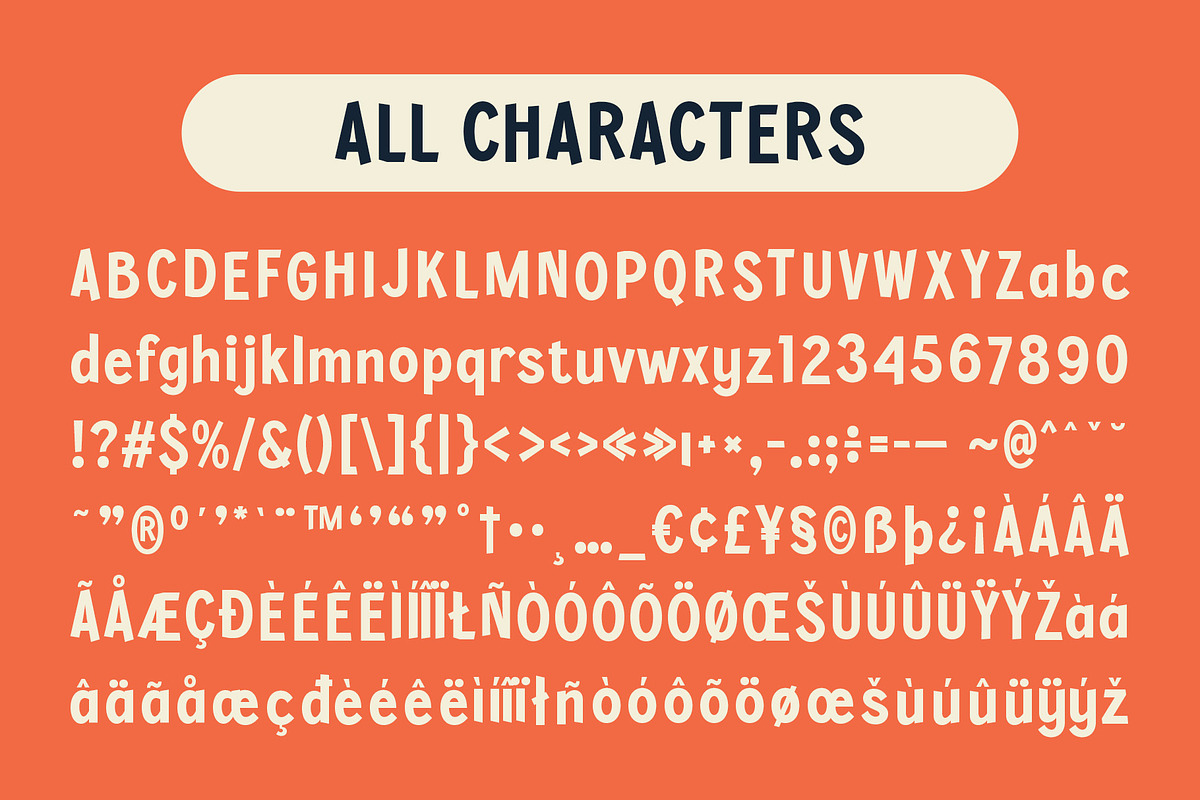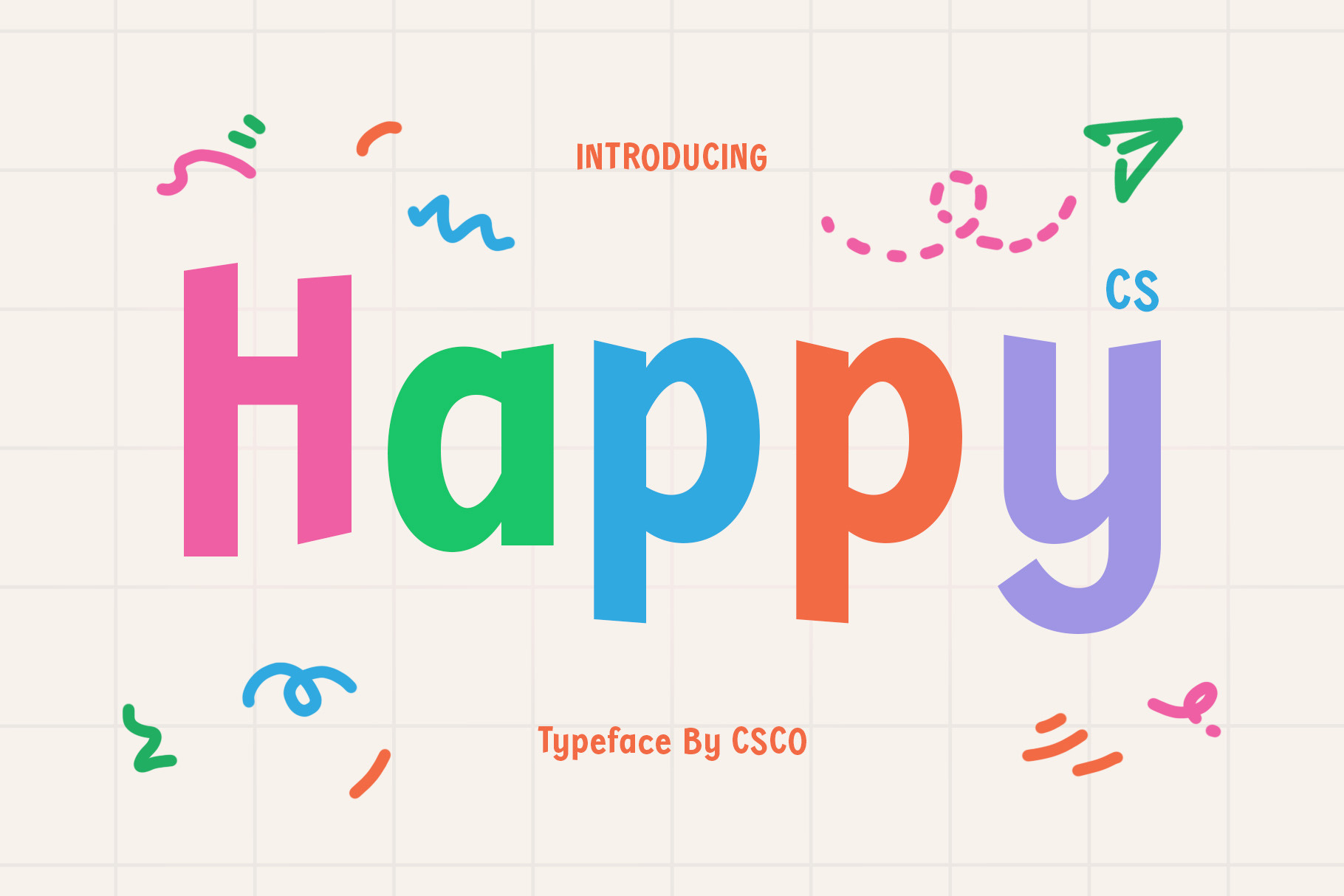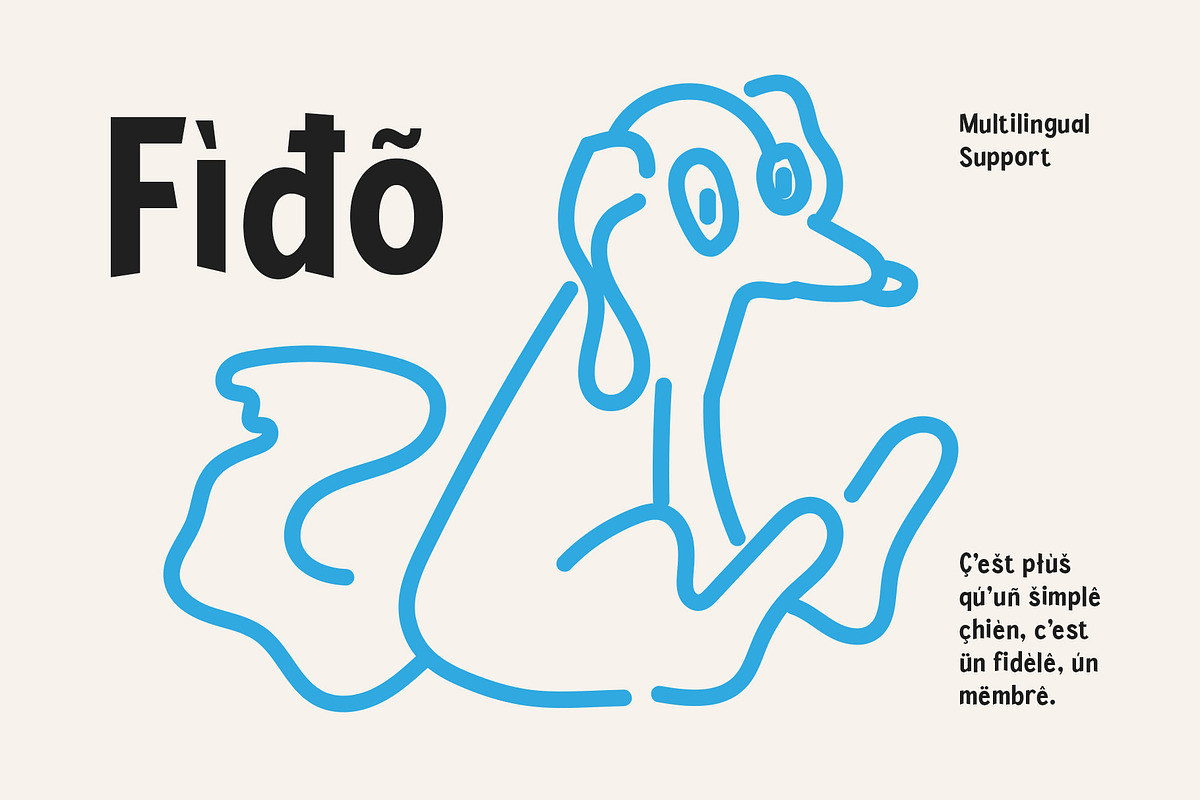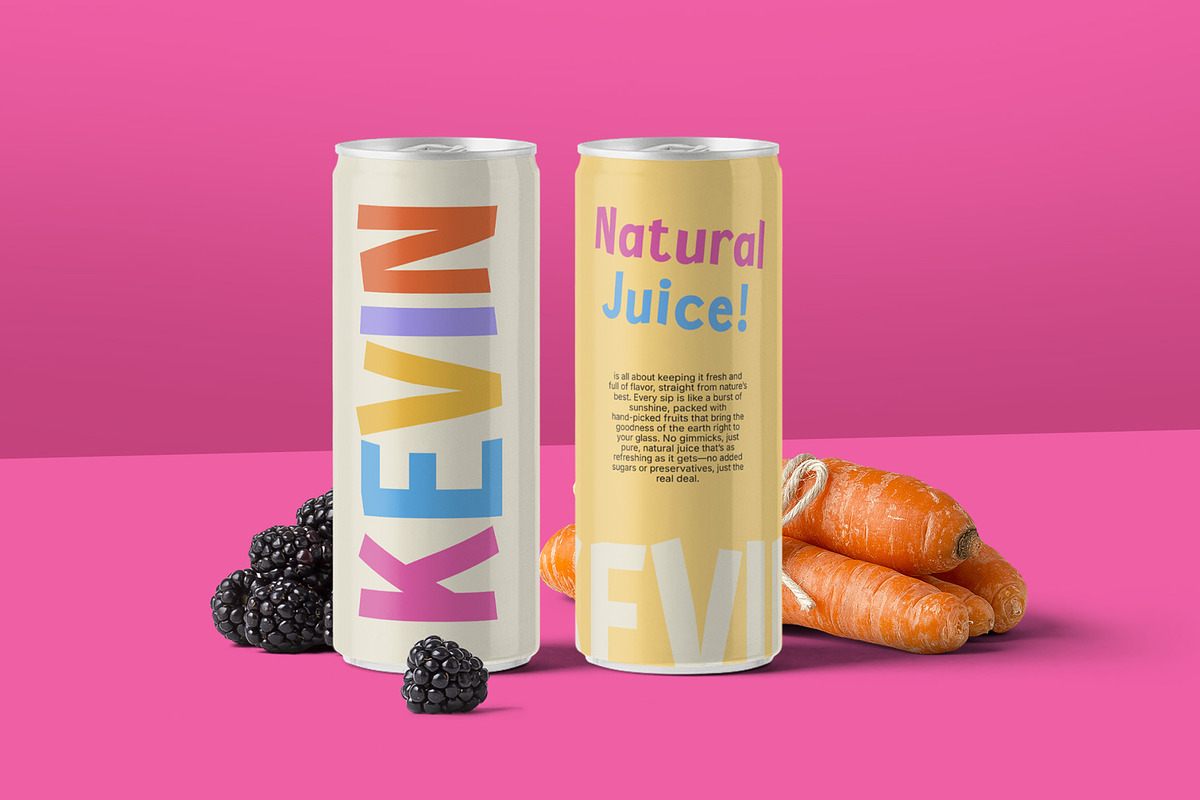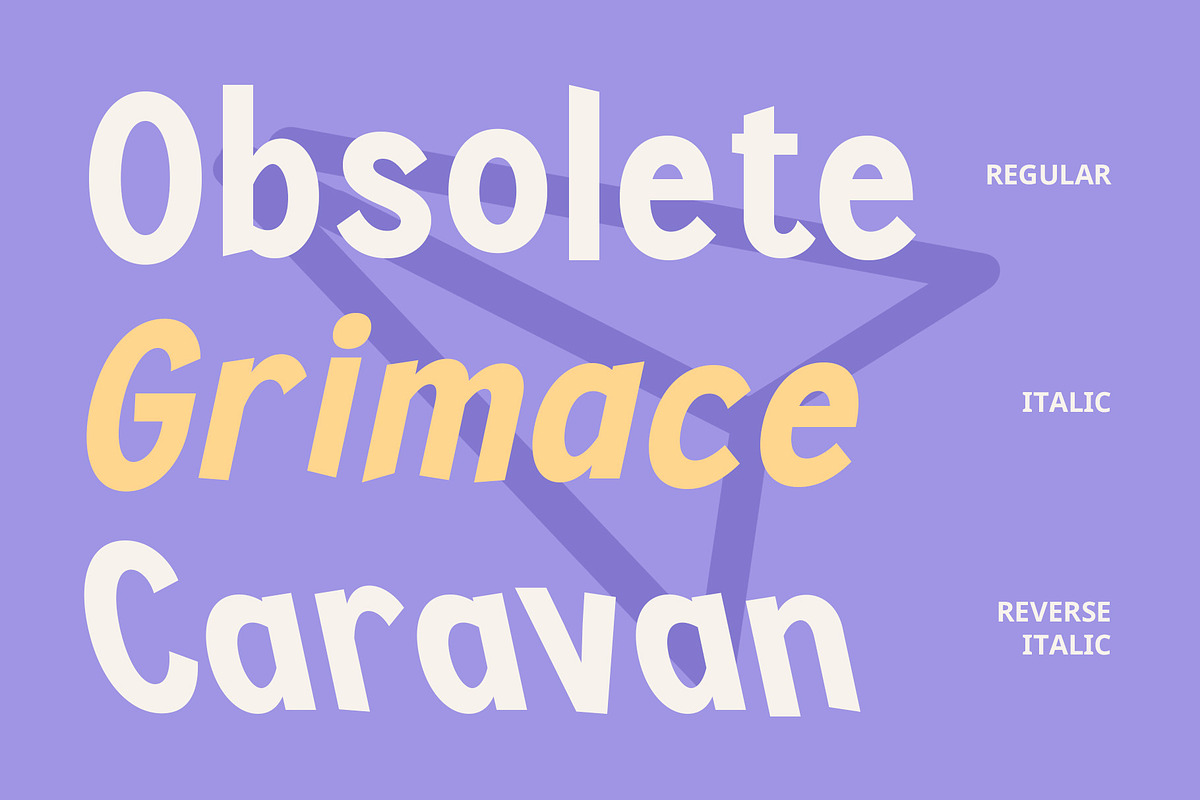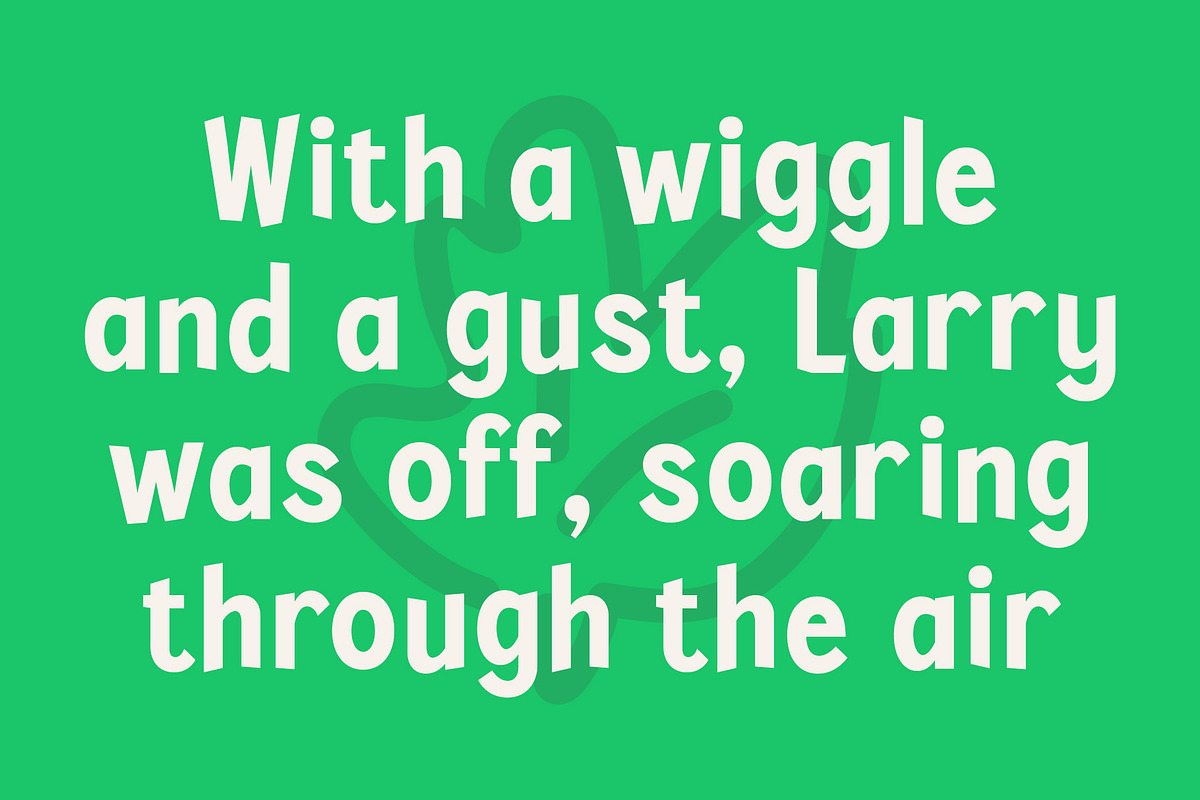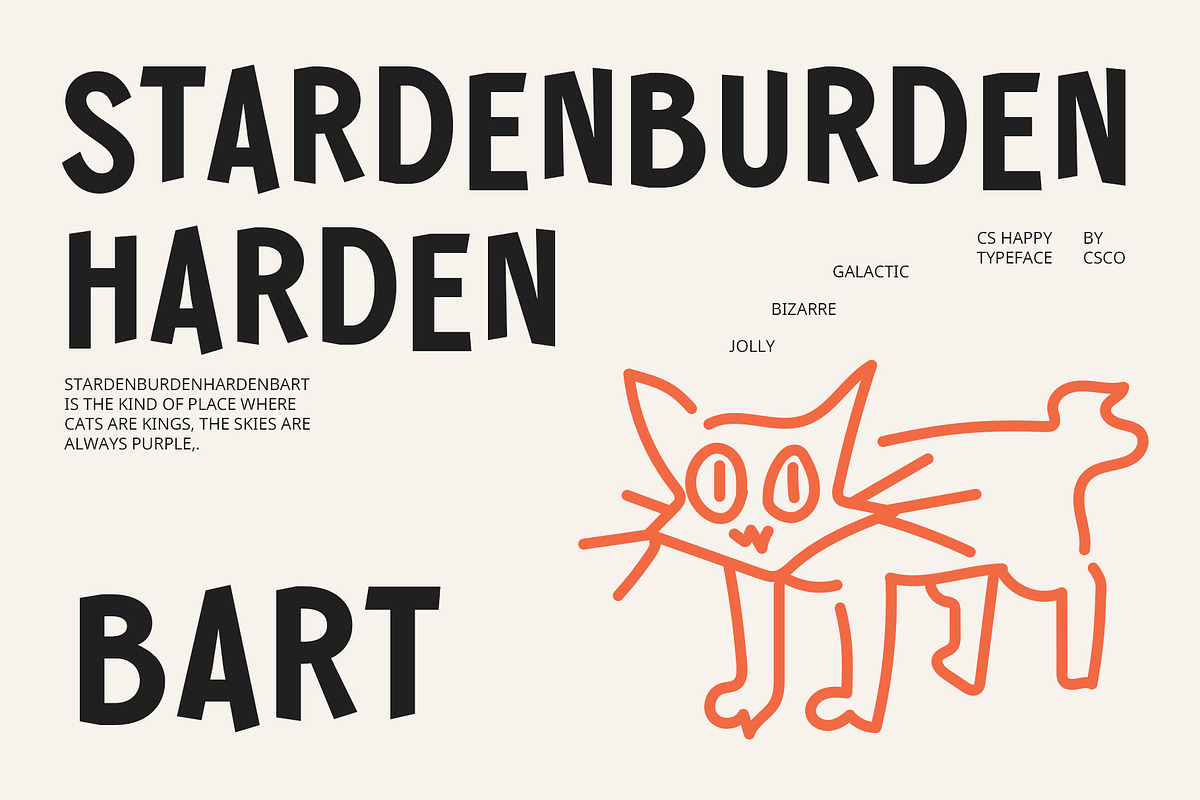
CS Happy – Fun Font
CS Happy – Fun Font: A Playful & Cheerful Sans-Serif Typeface
Bold & Fun Design CS Happy is a modern sans-serif display font with a fun and quirky shape, designed to evoke a cute, funky, and playful vibe. Its bold lines give it a strong presence, while the dynamic and cheerful feel adds a sense of joy to any design. Although not entirely round, the letters feature soft, expressive touches that contribute to a lighthearted and lively atmosphere, perfect for projects that need to radiate positivity and fun.
Perfect for Joyful and Creative Projects With its refreshing and energetic character, CS Happy is ideal for designs aimed at bringing smiles and spreading happiness. Whether you’re working on children’s books, colorful posters, or promotional materials, this font creates a playful and inviting vibe that resonates with audiences of all ages. Its relaxed yet expressive design makes it perfect for anything meant to inspire joy and creativity.
Versatile & Engaging for Various Applications From playful event invitations to vibrant branding, CS Happy is a versatile choice for a wide range of projects. Whether you’re looking to add a fun twist to marketing materials or brighten up a product package, this font ensures that your designs maintain an approachable, energetic, and positive personality. Its lively nature helps create a memorable, joyful visual identity that connects with people in an engaging way.
- CS Happy Regular
- CS Happy Italic
- CS Happy Reverse Italic